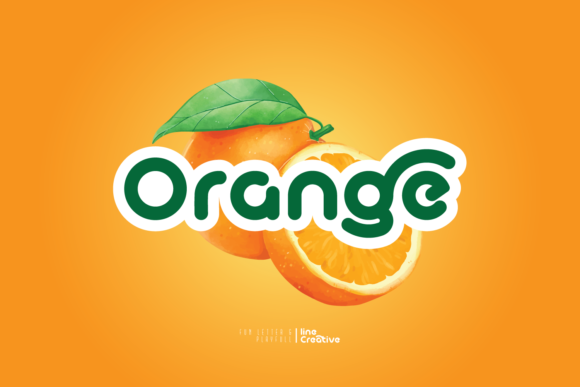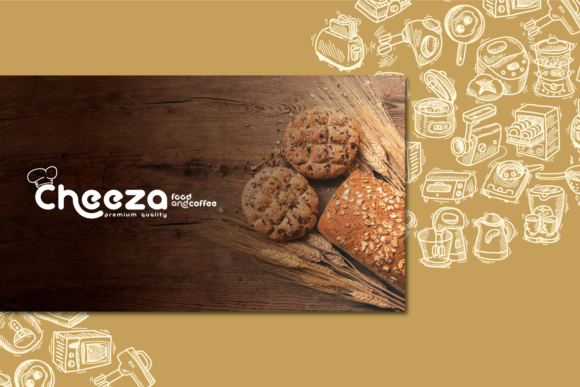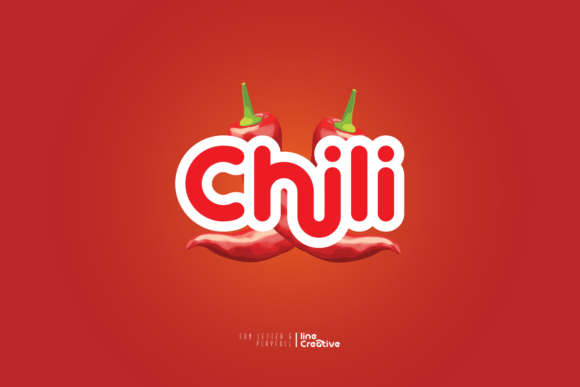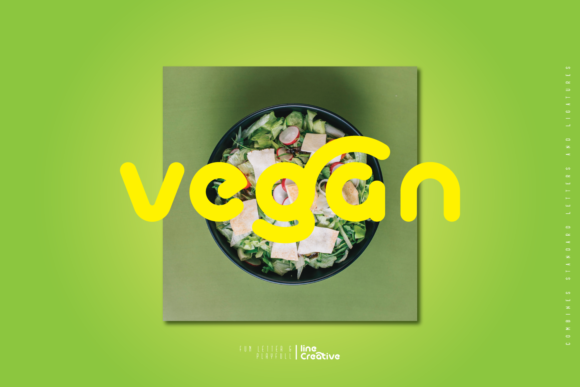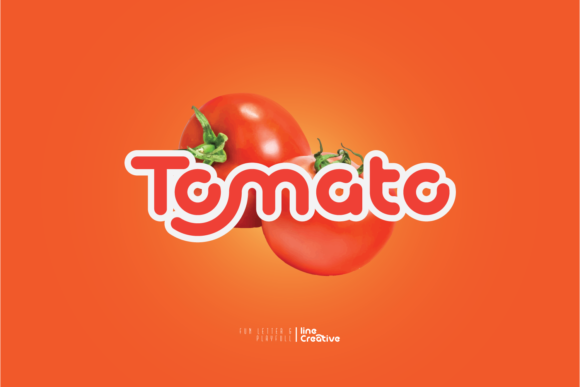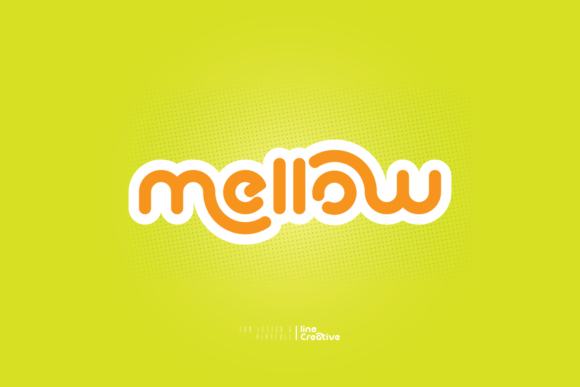
Introducing Chicken Wings Font: The Coolest Addition to Your Design Arsenal
Are you tired of using the same old fonts for your designs? Look no further! Chicken Wings Font is here to shake things up with its cool, trendy, and neat display font style. Whether you’re a digital designer, crafter, or simply someone who loves making greeting cards, this font is perfect for adding a touch of personality to your work.
What Makes Chicken Wings Font So Special?
Chicken Wings Font is a display font that boasts a unique and eye-catching style. Its clean lines, rounded edges, and playful vibe make it an excellent choice for a variety of design projects. Here are just a few reasons why you’ll love using Chicken Wings Font:
- Versatility: This font is perfect for a range of design applications, from digital designing and presentations to crafting and making greeting cards.
- Readability: Despite its playful style, Chicken Wings Font is surprisingly easy to read, making it ideal for headlines, titles, and short paragraphs of text.
- Customizability: With its clean and simple design, Chicken Wings Font can be easily customized to fit your brand’s style and aesthetic.
Uses for Chicken Wings Font
So, what can you use Chicken Wings Font for? The possibilities are endless! Here are a few ideas to get you started:
- Digital Designing: Add a touch of whimsy to your social media graphics, blog posts, and website headers with Chicken Wings Font.
- Crafting: Use Chicken Wings Font to create custom signs, banners, and decorations for parties, events, and special occasions.
- Presentations: Make your presentations stand out with Chicken Wings Font’s clean and modern style.
- Greeting Cards: Add a personal touch to your greeting cards and invitations with Chicken Wings Font’s playful and eye-catching style.
Tips for Using Chicken Wings Font
To get the most out of Chicken Wings Font, here are a few tips to keep in mind:
- Use it sparingly: Chicken Wings Font is a display font, so it’s best to use it sparingly to add emphasis and visual interest to your designs.
- Pair it with other fonts: Experiment with pairing Chicken Wings Font with other fonts to create a unique and visually appealing combination.
- Experiment with colors: Don’t be afraid to try out different colors and color combinations with Chicken Wings Font to add an extra layer of personality to your designs.
In conclusion, Chicken Wings Font is a cool, trendy, and neat display font that’s perfect for designers, crafters, and anyone looking to add a touch of personality to their work. With its versatility, readability, and customizability, Chicken Wings Font is an excellent addition to any design arsenal. So why not give it a try and see how it can elevate your designs to the next level?